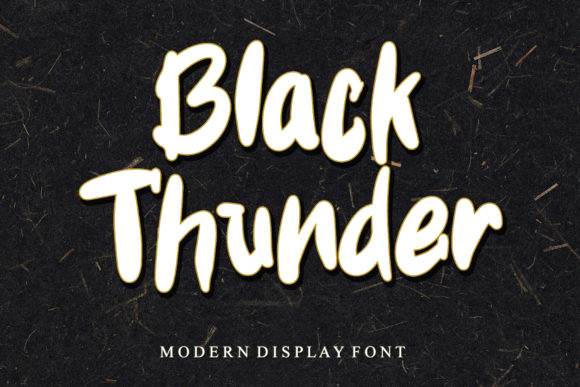
The Ultimate Guide to Black Thunder Font: A Cool, Trendy, and Brushed Display Font
I’ll never forget the time I was working on a project for a client who wanted a bold, eye-catching font to make their brand stand out. I spent hours scouring the internet for the perfect font, but nothing seemed quite right. That was until I stumbled upon Black Thunder Font. This cool, trendy, and brushed display font has been a game-changer for me, and I’m excited to share its awesomeness with you! 😊
An Honest Review of Black Thunder Font
So, what makes Black Thunder Font so special? Let’s dive into the good stuff! 🤩
- ✨ Unique Brushed Texture: Black Thunder Font boasts a distinctive brushed texture that adds a touch of ruggedness to any design.
- ✅ Highly Versatile: Whether you’re creating crafts, digital designs, presentations, or greeting cards, this font adapts seamlessly to any occasion.
- 💥 Attention-Grabbing: The bold, chunky letters are sure to grab attention and make your design stand out from the crowd.
Of course, no font is perfect, and Black Thunder Font has a few minor quirks:
- 🤔 Limited Legibility at Small Sizes: Due to its bold, brushed texture, Black Thunder Font can become difficult to read at very small font sizes.
- ⚠️ Not Suitable for Body Text: This font is best used for headlines, titles, or short phrases, rather than lengthy blocks of text.
A Practical Guide to Using Black Thunder Font
The Backstory of Black Thunder Font
Black Thunder Font was designed by a team of creatives who wanted to create a font that would make a bold statement. Inspired by the rugged, industrial landscapes of the American West, they crafted a font that would evoke the power and energy of the open range. The result is a font that’s both tough and trendy, perfect for designers who want to add a little edge to their work.
| Font Name | Black Thunder Font |
| Author | Letterafa Studio |
| What is Black Thunder Font? | Black Thunder Font is a cool, trendy, and brushed display font designed for use in a variety of creative projects. |